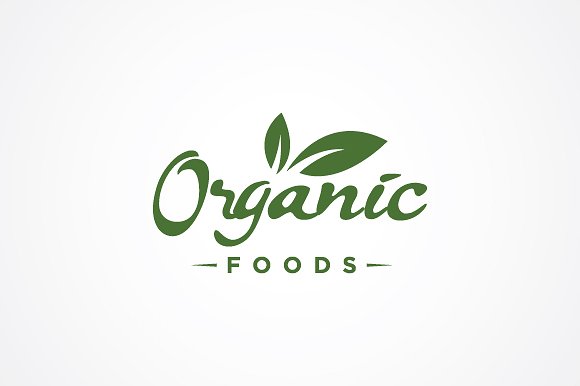
Stya Script Font
If you are looking for a new script scripts for your project, this is an perfect for your choice. Introducing Stya Script Font. Stya Script designed by menangan studio. STYA is Unique Script font, perfect for logos, header, labels, headlines and branding. Font in otf and ttf format.